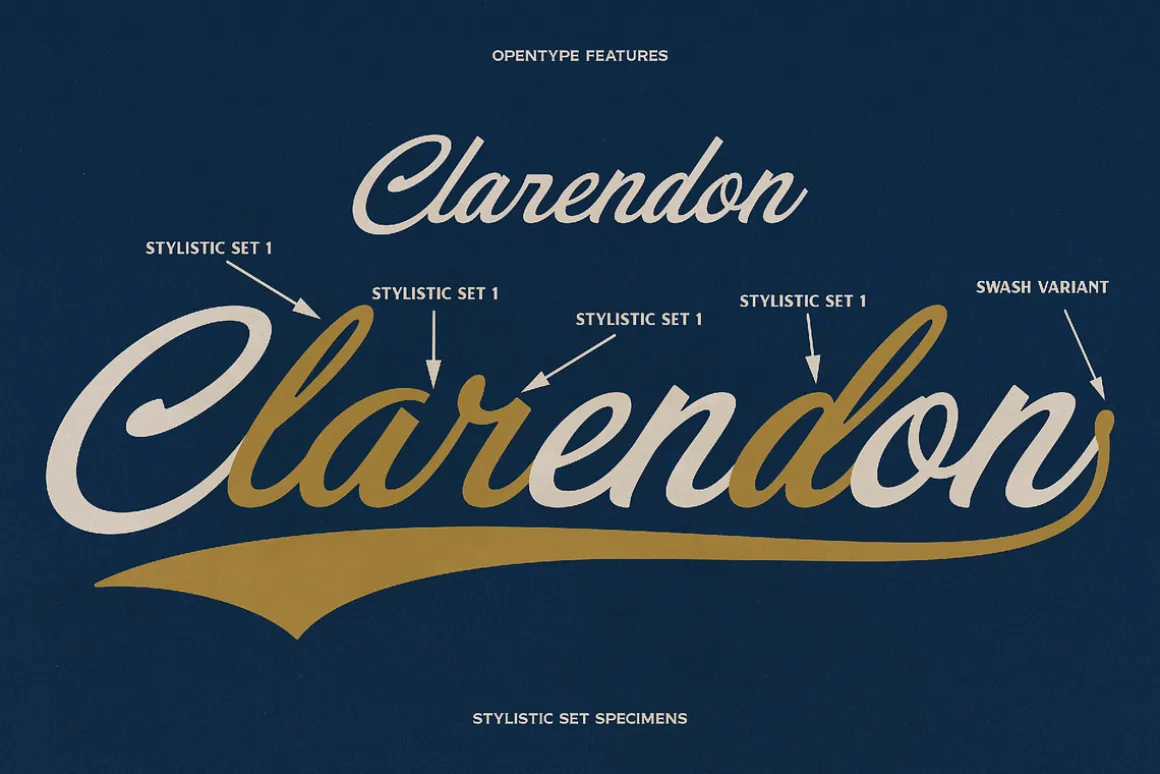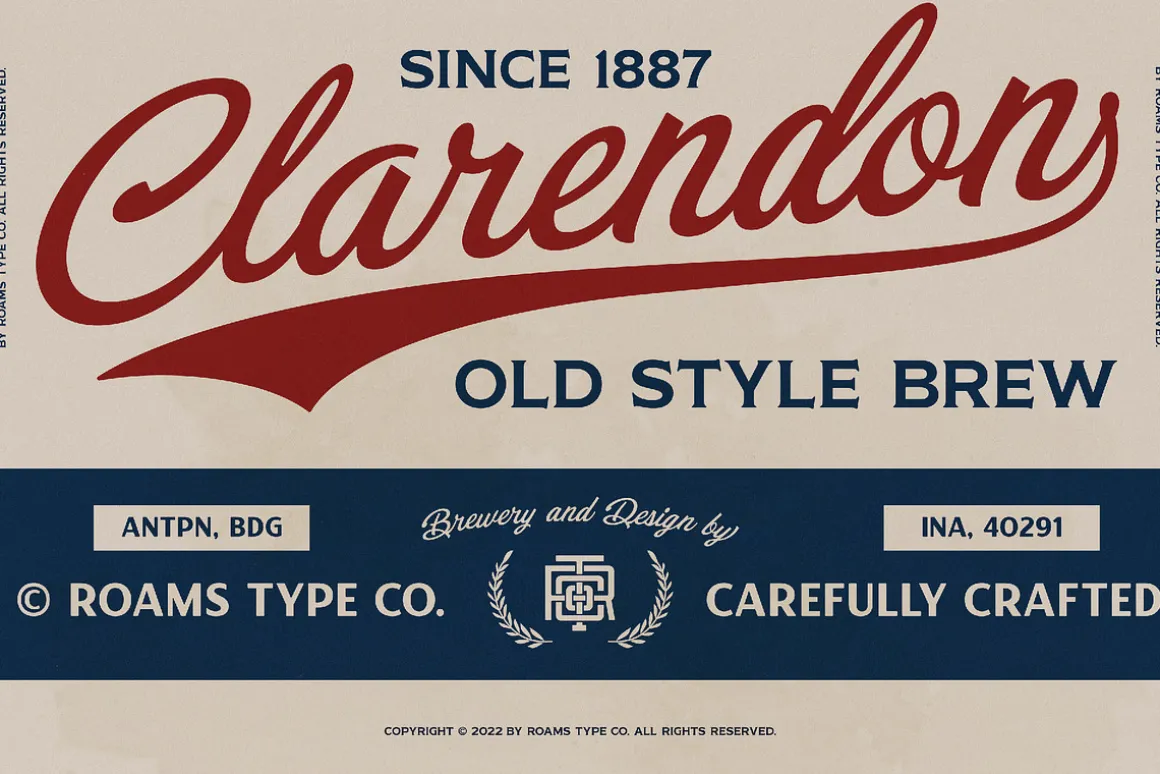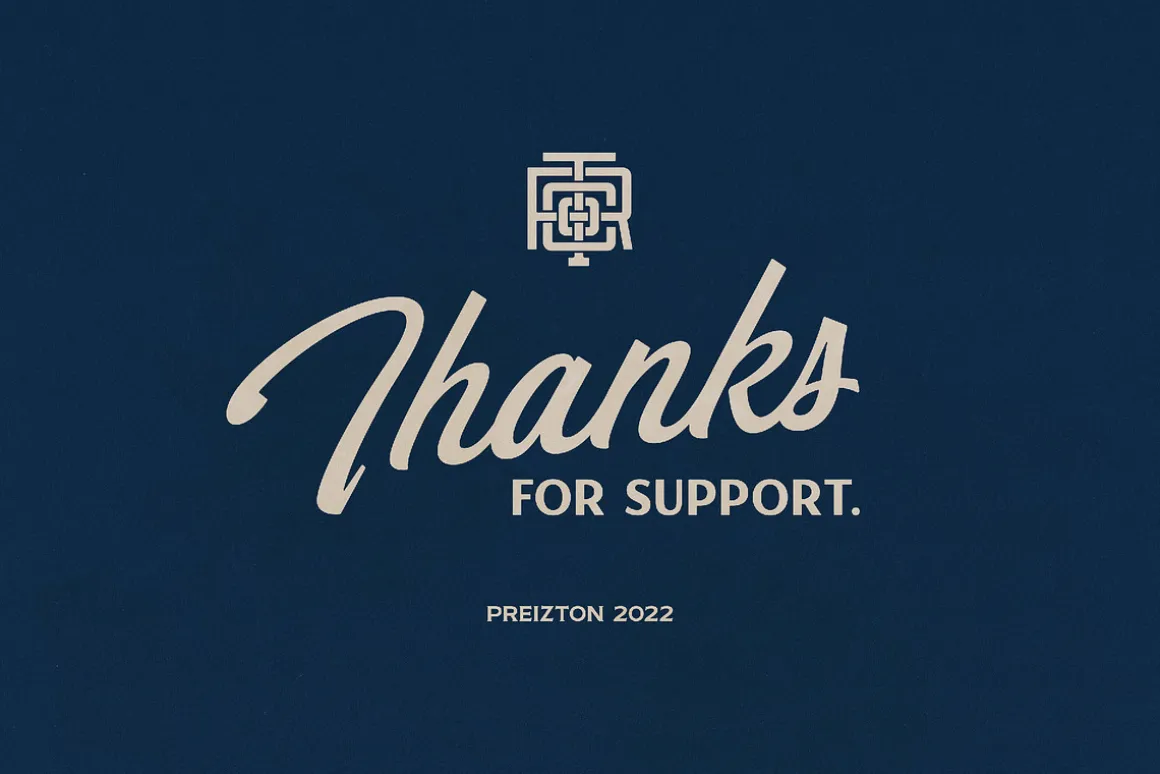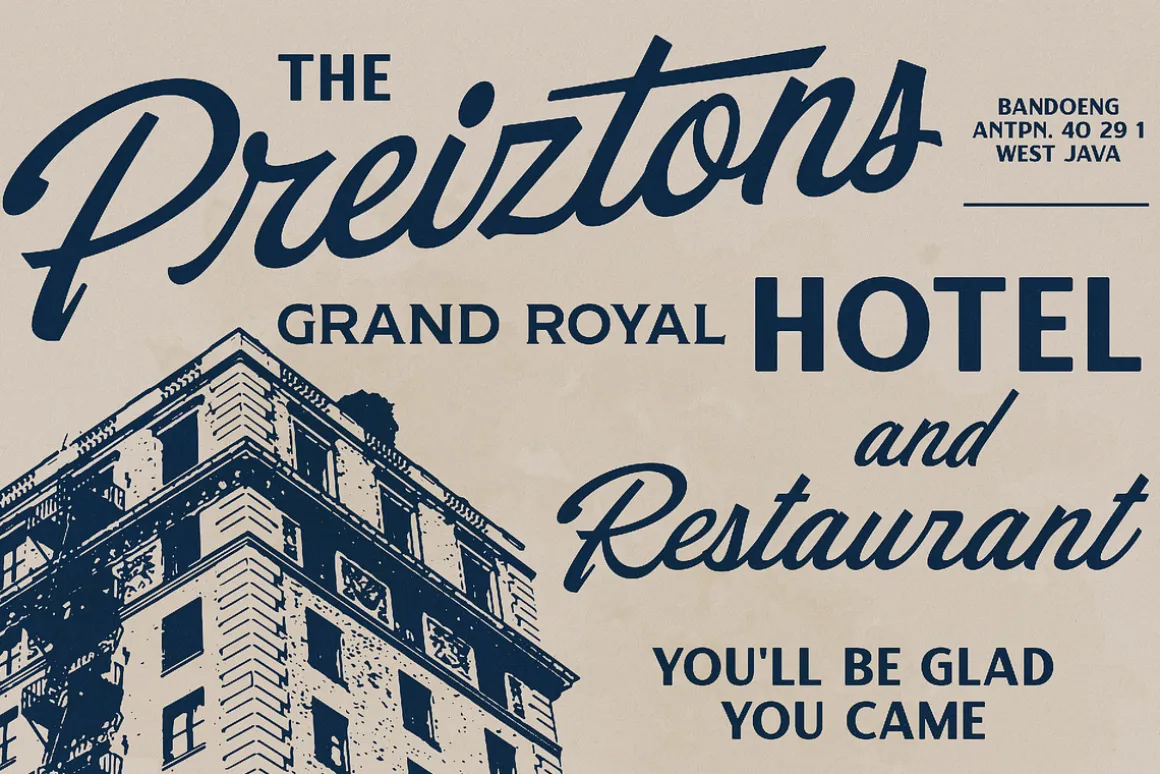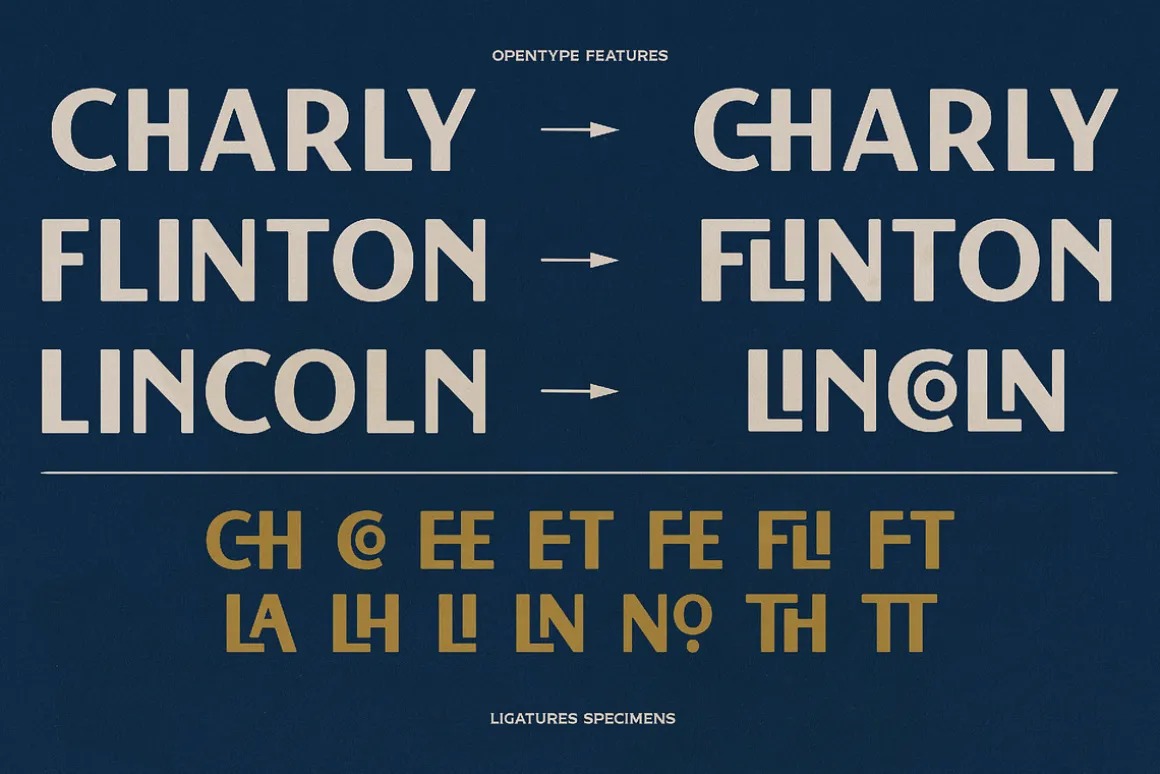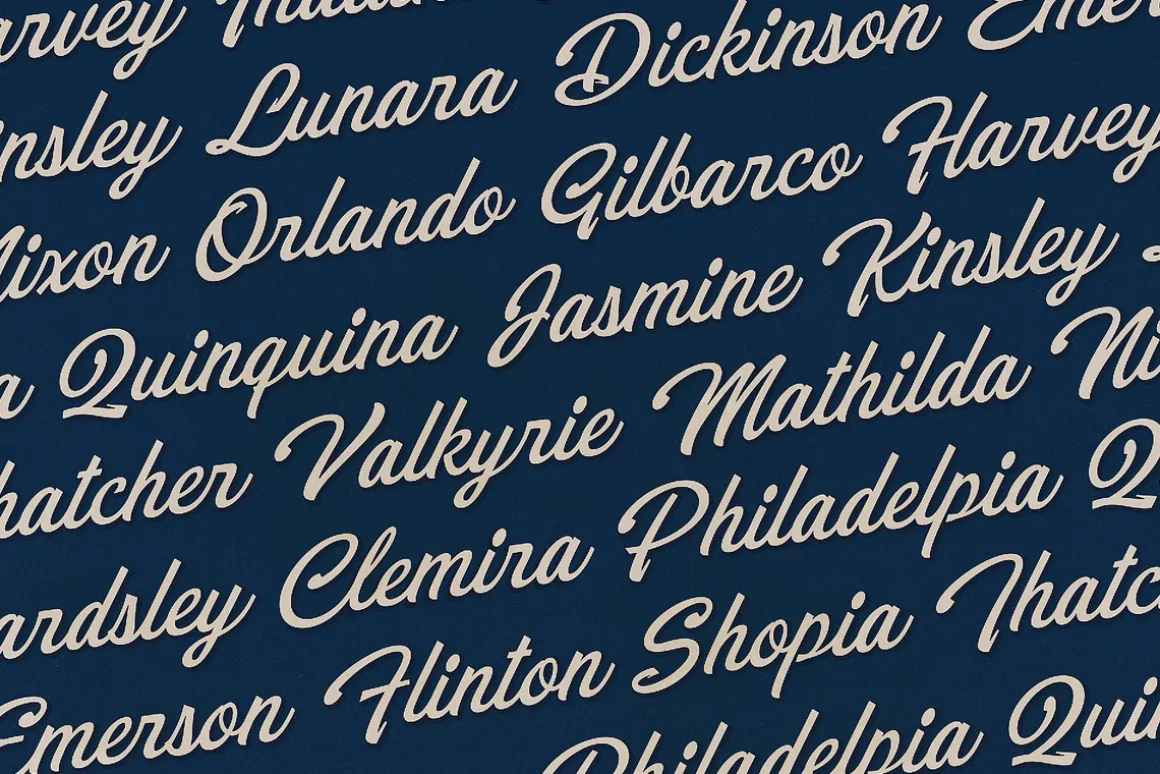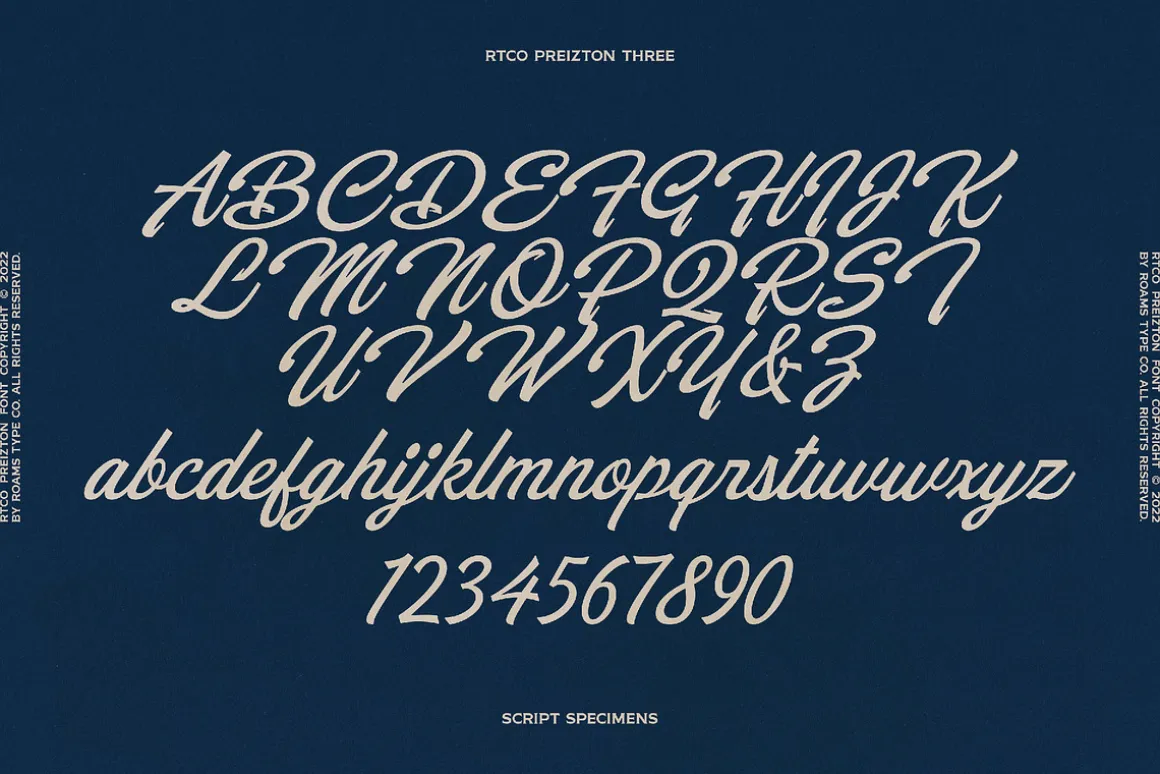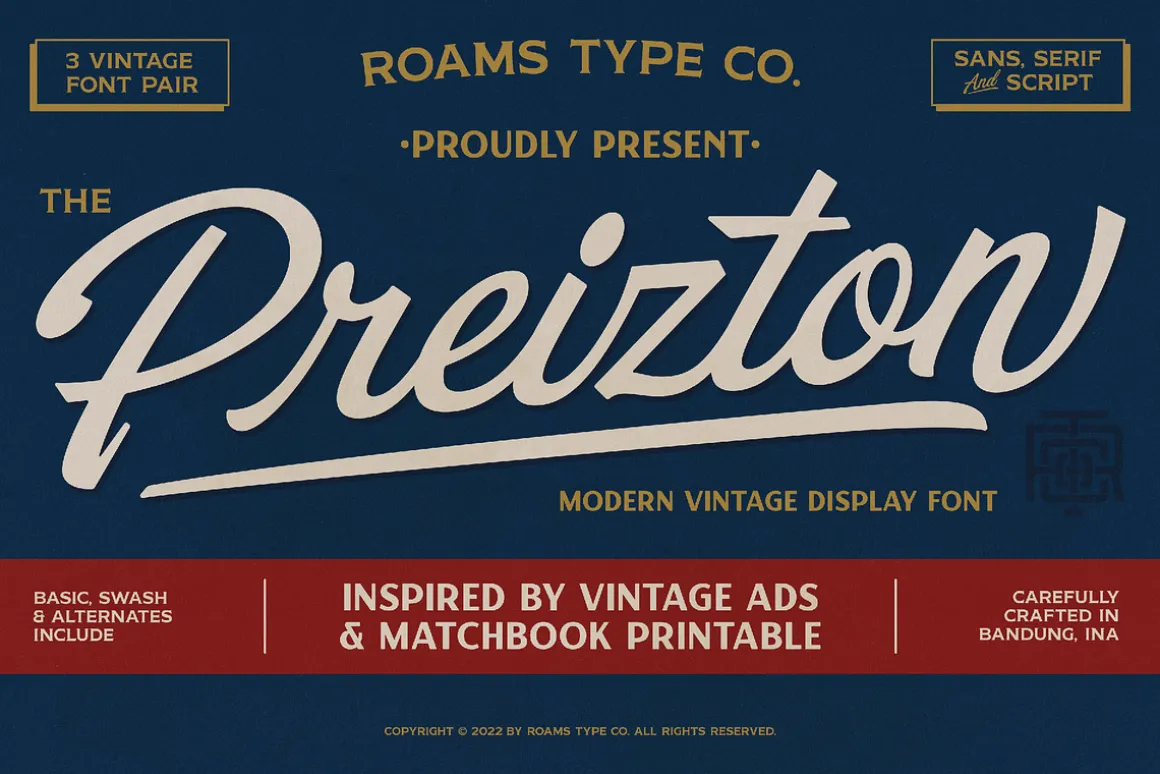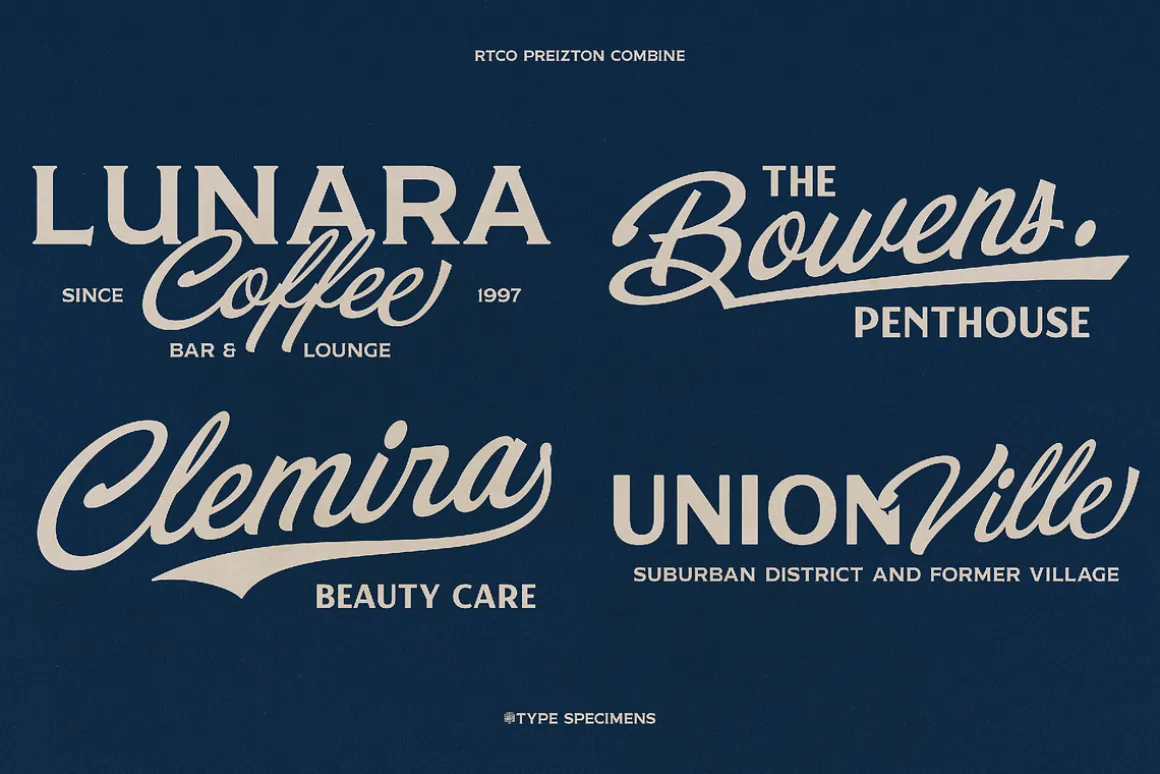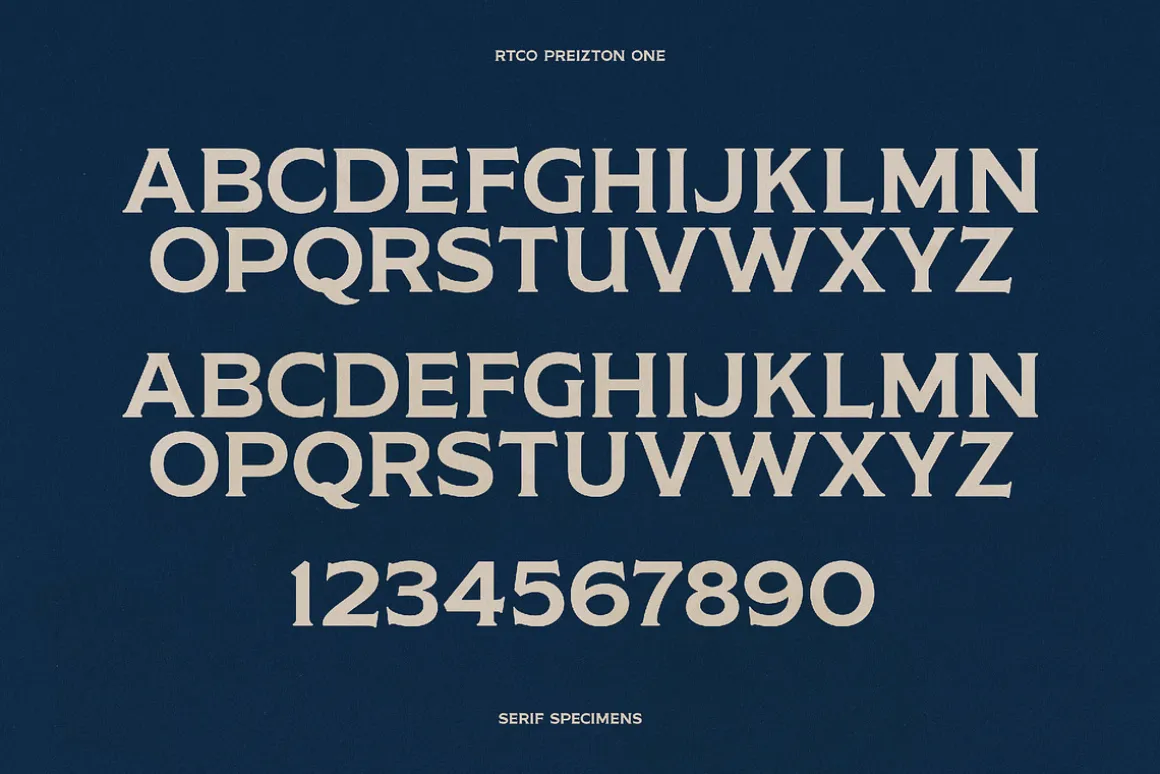
RTCO Preizton Font
RTCO Preizton Font made based on the concept of vintage style graphic design, inspired by the matchbooks & advertising in the 60-80s era.
There are 3 types of this font, including Sans, Serif, and Script.
Sans font has an opentype ligature feature that makes the font dynamic,while in the Script font there are alternatives that make it look better
This font is suitable for graphic designs such as logotypes, merchandise, printed stickers, and other branding needs.